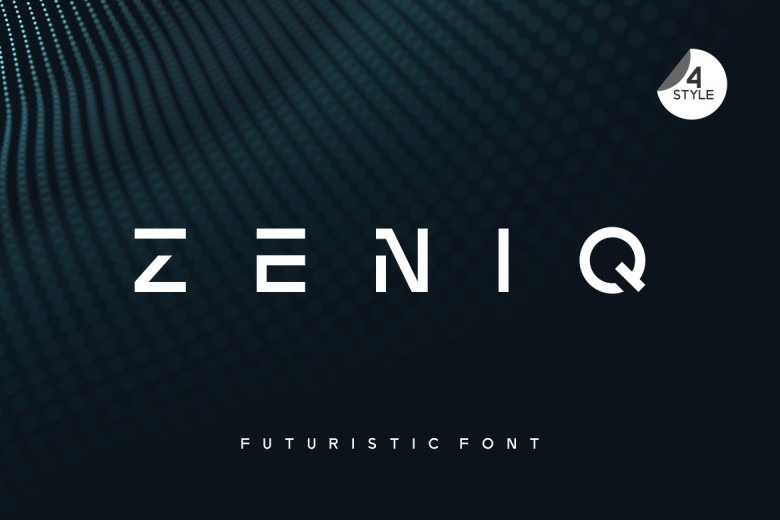
Zeniq Modern Sans Display Font
Introducing Zeniq Font, A modern sans display typeface specifically made for luxury, fashion and stylish statement with a special charm that makes it perfect for beautiful headlines, branding, logotypes & display usage.